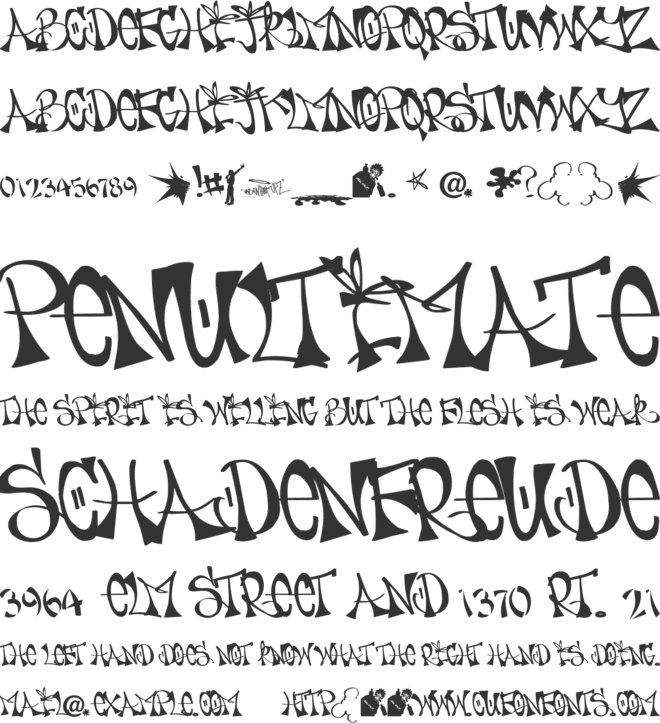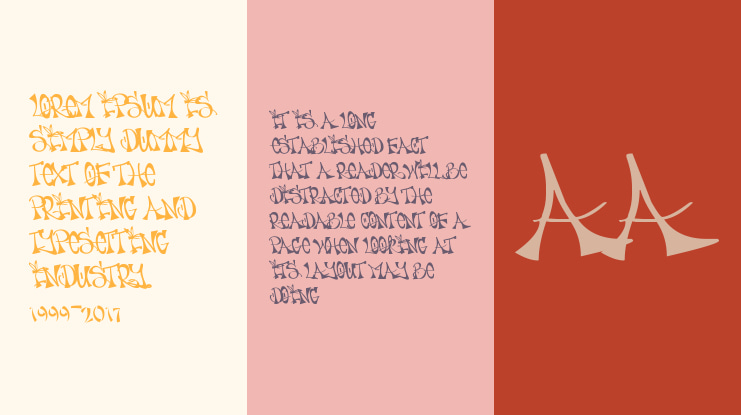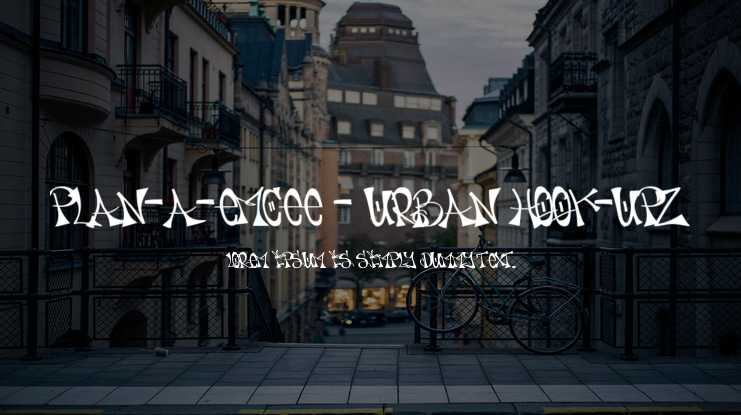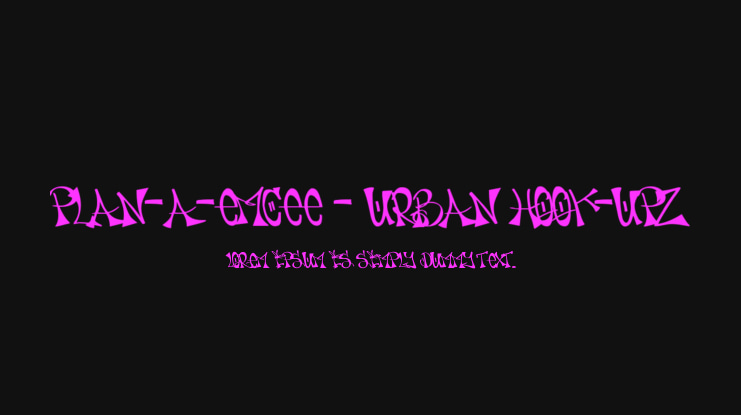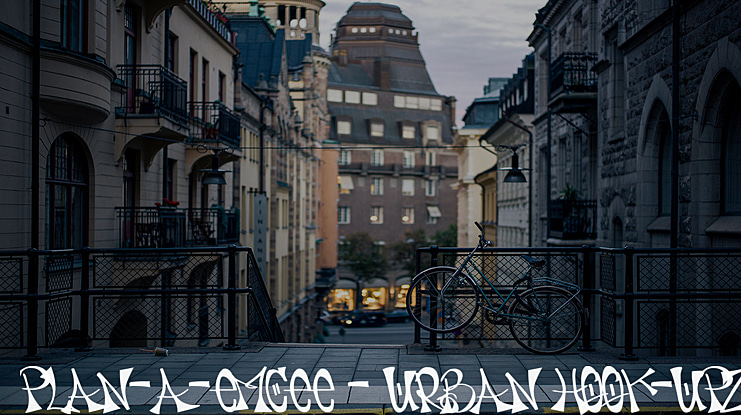
PLAN-A-EMCEE - URBAN HOOK-UPZ Font
" Plan-A-Emcee font " Another great Urban Hook-Upz graffiti font for the world to play with. It took me a while but the letters flow nicely.
Plan-A is always your best choice!